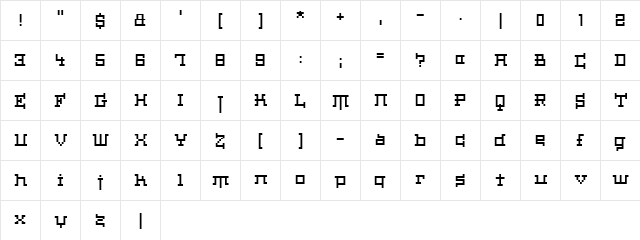
Haiku Regular
Design Context for Haiku
Haiku is a composed and adaptable typeface that performs quietly and consistently across a wide range of design contexts.